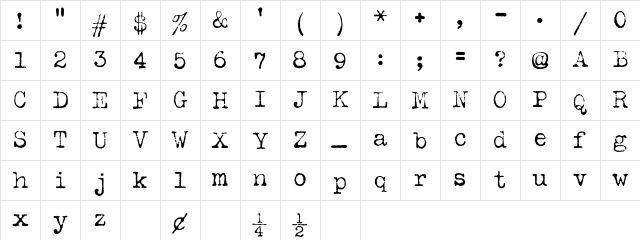
Typeka Regular
Typeka Family
Typeka Regular
Design Context for Typeka
Typeka is a composed and adaptable typeface that performs quietly and consistently across a wide range of design contexts.